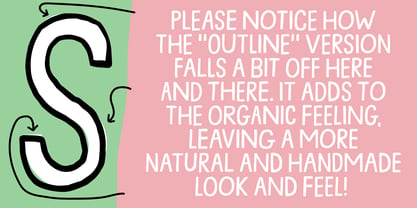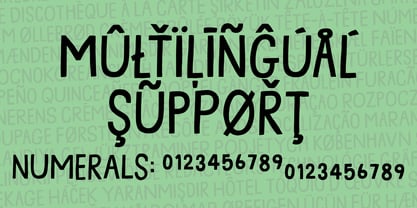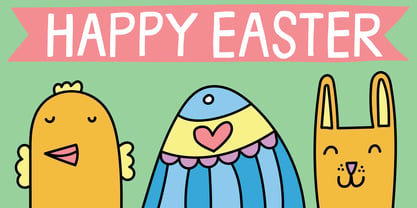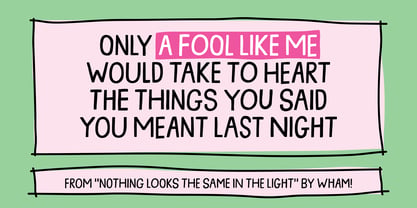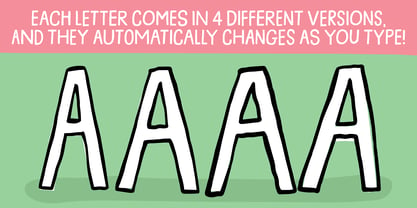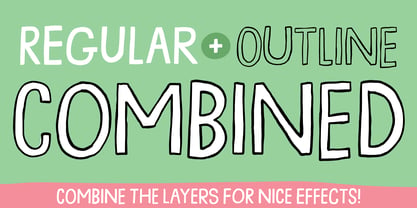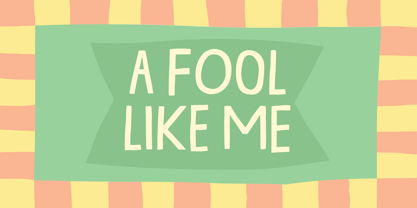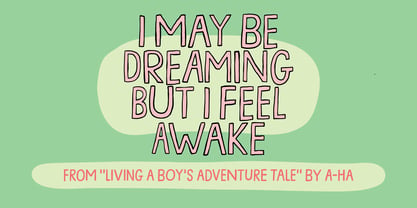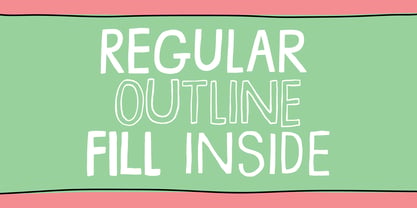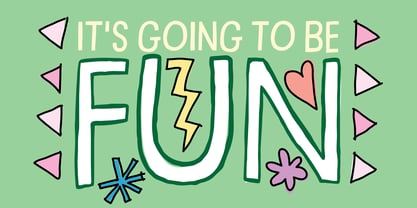
A fool like me
The A fool like me Font Family was designed by Jakob Fischer and published by PizzaDude.dk. A fool like me contains 4 styles and family package options. More about this family
“A Fool Like Me” is super chill and a bit funky in the best way. It’s got those smooth edges that make everything feel soft and easygoing, like it’s not trying too hard but still looks cool. The letters are clean and steady, no weird drama in the strokes, just a nice even flow that makes it super legible. It kinda feels like a laid-back headline font you’d see on something fun and modern. Even though it’s all caps, it doesn’t shout in an aggressive way—it’s more like a confident, relaxed vibe. Overall, it’s simple, friendly, and just a little bit playful. Play around with the different versions, combine them and get super playful and organic expressions! Each letter comes in 4 different versions, and they automatically changes AS you type! Just like magic :)